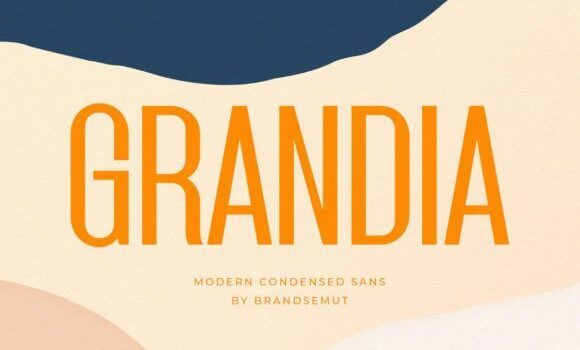
Grandia Font – Free Download Introduction to Grandia Font Grandia is a modern and simple font, best used as a display for headings, logos, branding, magazines, product packaging, and invitations. 📸 Preview Gallery 5 images 📌 Product Name Grandia Font